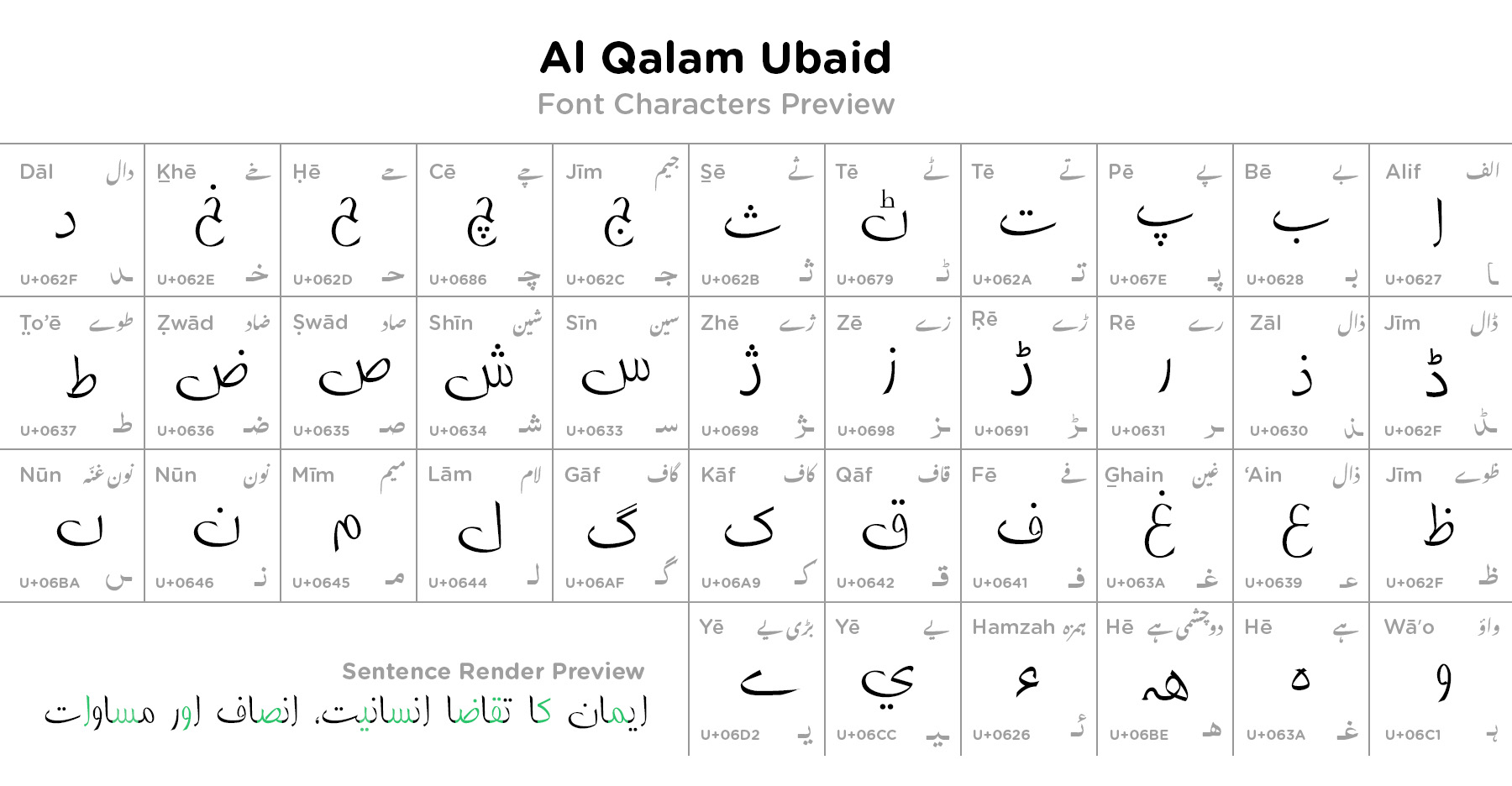
Al Qalam Ubaid, introduced in December 2007, is a soft Qalam writing font characterized by its highly smooth nature and slanted terminals. With 397 characters and symbols, it offers compatibility with various languages, including Urdu, Arabic, Latin, and Persian. Drawing inspiration from modern styles with a hint of Diwani influence, this font displays a unique and stylish aesthetic. The font’s thin yet dynamic strokes contribute to its elegance, while its delicate strokes add a touch of sophistication. Best suited for short texts due to its thin and slightly handwritten nature, as it would not be appropriate for formal writing applications. Ideal for a range of applications such as branding, advertising, books, invitations, and gift cards, this font adds flair and personality to any design project. However, it is available in only one weight, that can result in limiting its adaptability. Otherwise, this font is highly accessible and preferred by graphic designers for various creative works.